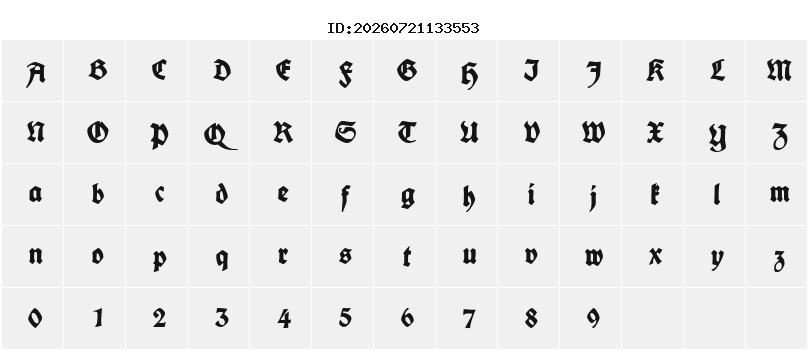
• Font Name: Fette deutsche Schrift UNZ1L
• Designer: Dieter Steffmann
• Description: Eine deutsche Schrift (Fette deutsche Schrift) von Prof. Rudolf Koch, 1908. Digitized and hinted by Dieter Steffmann, Kreuztal